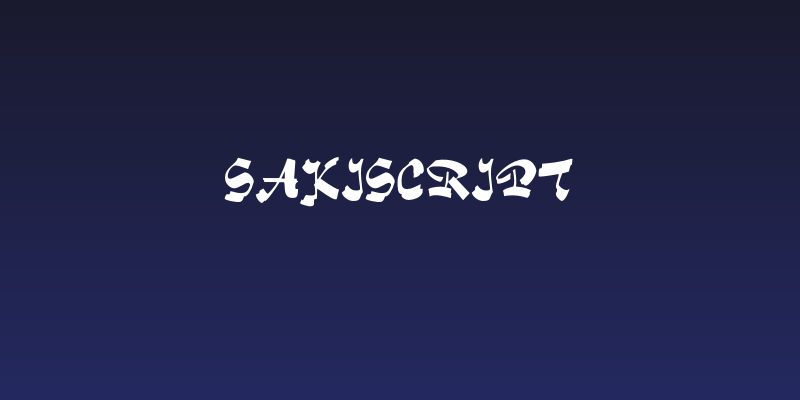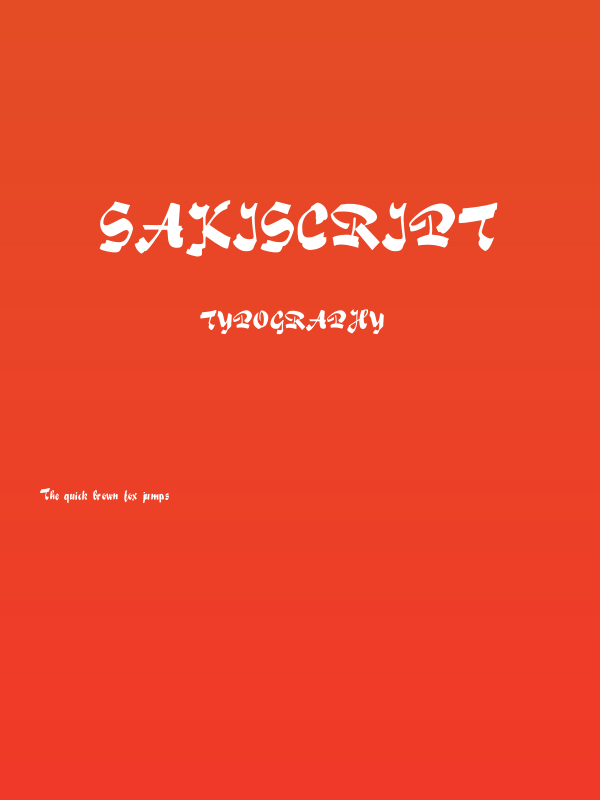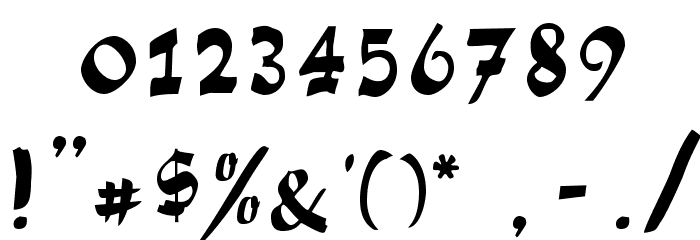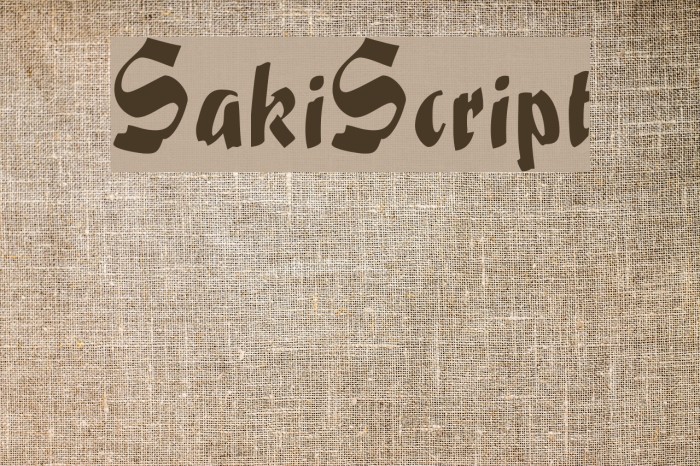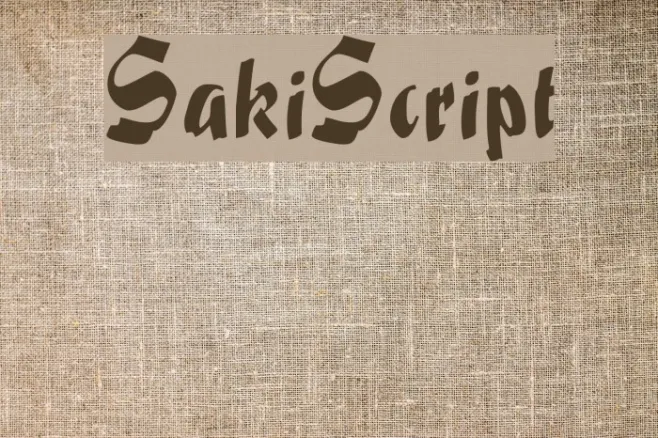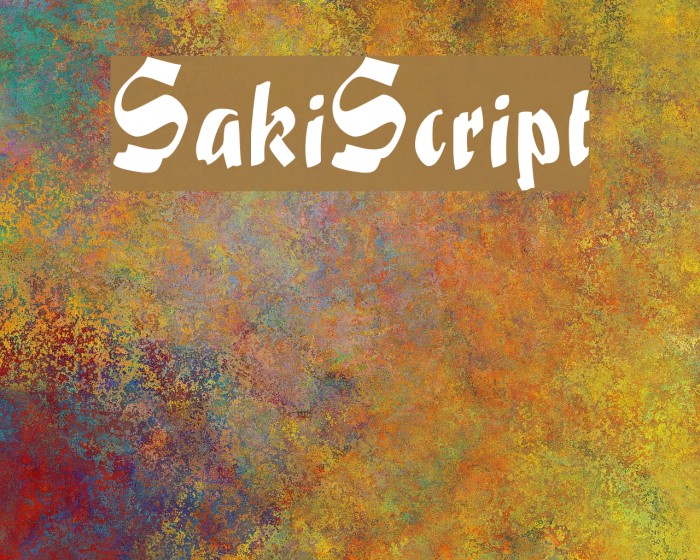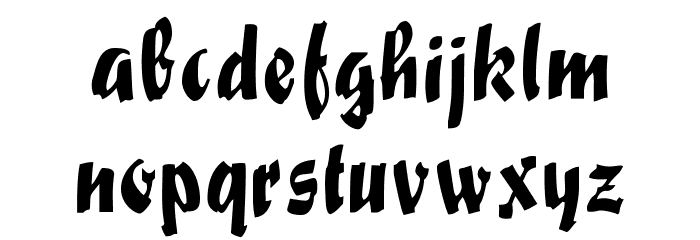
SakiScript Font
SakiScript Description
This font features a bold and dramatic style with a strong calligraphic influence. The characters are crafted with sharp, angular strokes that give it a distinctive and dynamic appearance. The uppercase letters are particularly striking, with exaggerated serifs and flourishes that add a sense of movement and energy. The lowercase letters maintain this boldness, with a slightly more compact form that ensures readability. Numbers and special characters are designed to match the overall aesthetic, providing a cohesive look across all elements. This font is ideal for projects that require a touch of elegance and flair, making it suitable for headlines, logos, and decorative purposes.
| Use Case | Headlines, Logos, Decorative |
| Proposed Projects | Ideal for branding, event invitations, posters, and artistic projects requiring a bold statement. |